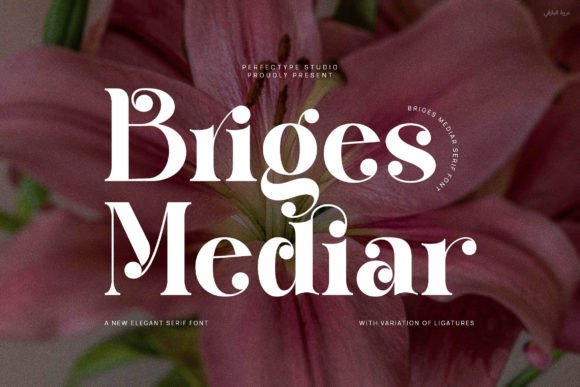
The Elegance of Briges Mediar Font: A Designer’s Delight
This serif font is designed with elegance and luxury in mind, making it perfect for all your high-end design projects. In this article, I’ll share my experience with Briges Mediar Font, its features, and how to make the most of it in various design platforms.
- ✅ Elegant and refined design, perfect for luxury branding and high-end projects
- ✨ High legibility, even at small font sizes
- ✅ Wide range of applications, from logos and social media posts to product packaging and wedding designs
- ✅ Supports OpenType features, glyphs, and stylistic alternates, giving you creative flexibility
While Briges Mediar Font is an excellent choice for many design projects, there are a few things to keep in mind: 🤔
- ⚠️ Limited availability of condensed or extended versions, which might limit its use in certain design contexts
- ⚠️ Some users may find the font too ornate or elaborate for very casual or playful designs
- Experiment with OpenType features, such as ligatures and stylistic alternates, to add creative flair to your design
The Designer Inspiration Behind Briges Mediar Font
The story behind Briges Mediar Font is one of passion and dedication. The font’s designer, inspired by the world of luxury and elegance, aimed to create a typeface that embodies refinement and sophistication. The result is a font that exudes class and poise, perfect for designers seeking to create high-end visual identities.
Q: What type of projects is Briges Mediar Font best suited for?
A: Briges Mediar Font is perfect for luxury branding, high-end projects, logos, social media posts, product packaging, wedding designs, and any project that requires a touch of elegance and sophistication.
Q: Is Briges Mediar Font easy to read?
A: Yes, Briges Mediar Font is designed with high legibility in mind, making it easy to read even at small font sizes.
Q: Can I use Briges Mediar Font in combination with other fonts?
A: Absolutely! Briges Mediar Font pairs well with a variety of fonts. Experiment with different combinations to find the perfect match for your design project.